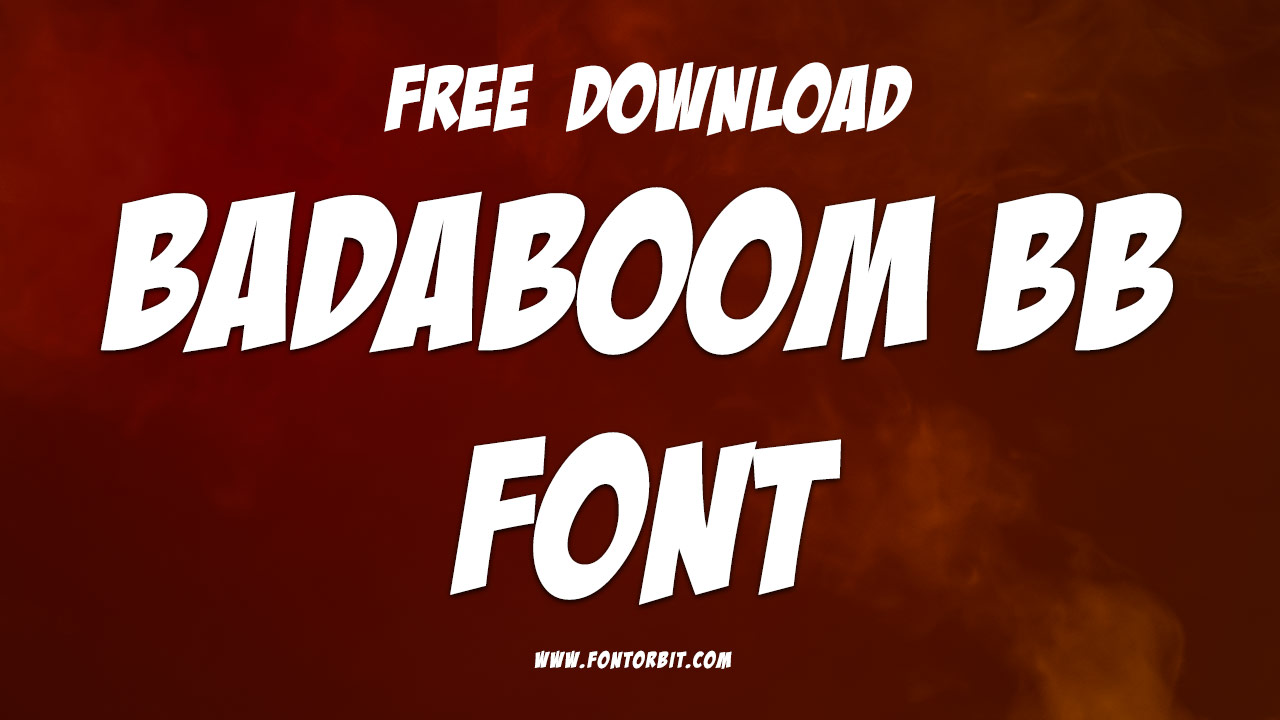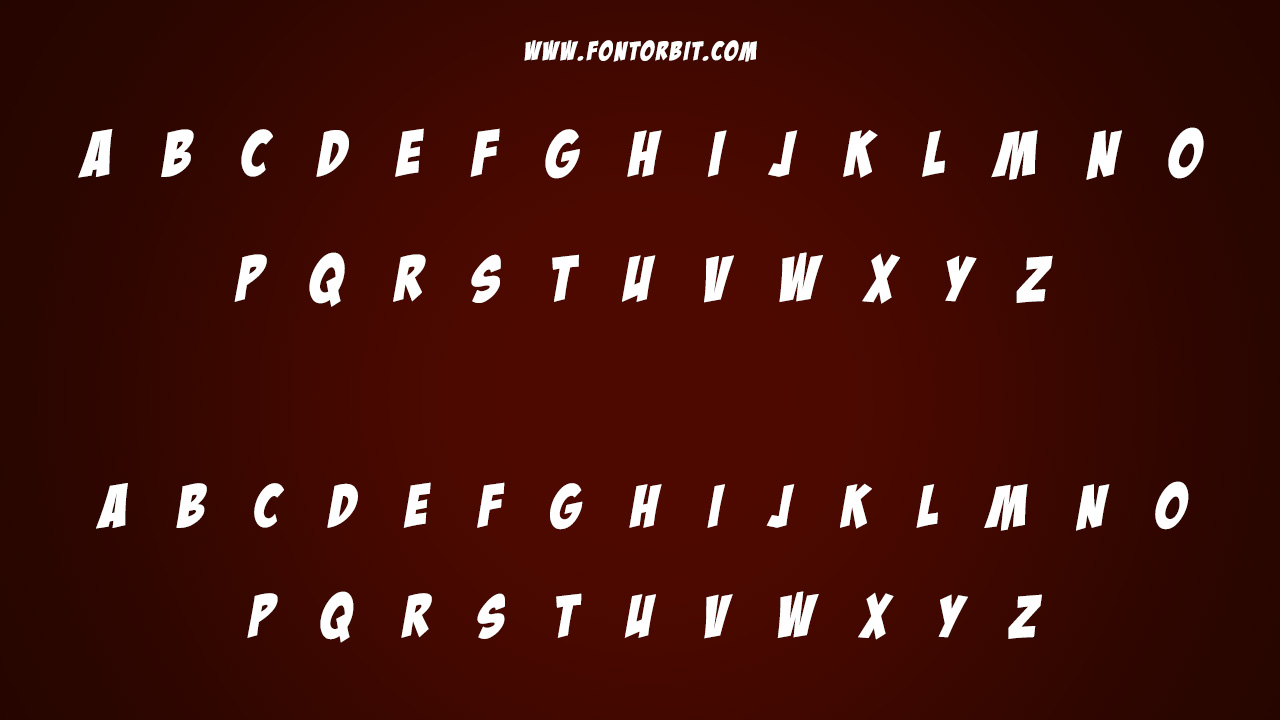
Badaboom BB, designed by Nate Piekos and published by Blambot, is a dynamic font perfect for comic book sound effects like “BLAM!” and “AAAAARGH!”.
This font is part of Blambot’s Sound Effects Collection and features bold, expressive design elements suited for comic and graphic projects. The updated version includes improved kerning, modern metrics, and expanded characters, enhancing its usability and appearance.
Badaboom BB Font Family
a. Badaboom BB Regular
You can use the Badaboom BB Regular font for comic book sound effects, graphic novels, action scenes, and dynamic titles. It’s ideal for creating energetic visuals in comic strips, promotional materials, and social media graphics.
Its bold and dramatic style is ideal for adding emphasis and energy to various comic and graphic design projects. Badaboom BB Font excels in:
- Comic book sound effects
- Graphic novels
- Action scenes
- Creative titles
- Social media graphics
Badaboom BB Font, created by Nate Piekos and published by Blambot, offers an expressive typeface tailored for comic book sound effects. The font’s latest version features updated kerning and expanded character support, making it a valuable tool for creating impactful and energetic designs.
1.What Are The Advantages Of Using The Badaboom BB Font Over Other Fonts?
Offers dynamic impact for comic sound effects and dramatic scenes, with improved kerning and character spacing for enhanced readability.
5.What Is The History Of The Badaboom BB Font?
Originally released in 2003, updated in 2015 with enhanced kerning and expanded characters.
6.What Type Of Font Is Badaboom BB?
It is a comic book display typeface designed for sound effects and dynamic text.